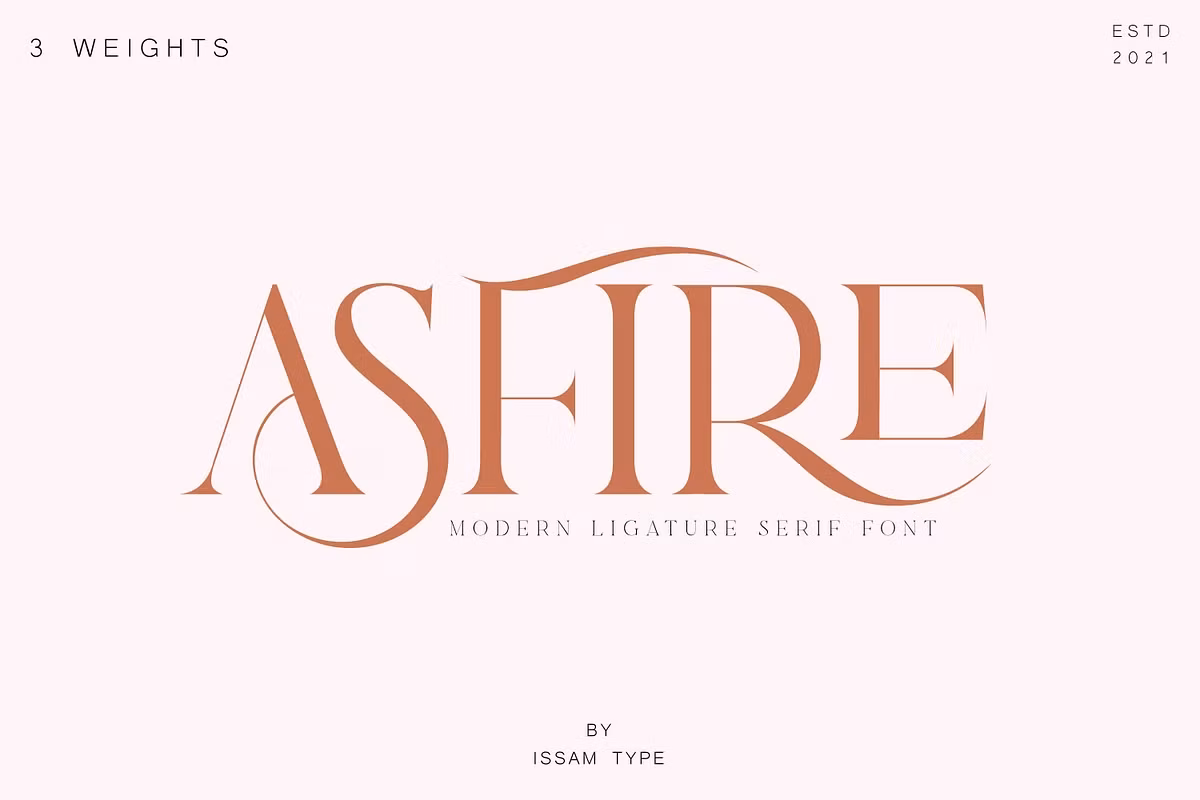
Asfire – Elegant Ligature Serif Font Free Download is a refined and sophisticated serif typeface that incorporates beautiful ligatures, creating a smooth and elegant flow. This font is perfect for high-end branding, luxury packaging, wedding invitations, editorial design, and any project that demands a timeless, graceful aesthetic.
With its strong serif features and artistic ligatures, Asfire offers both readability and style, making it ideal for logos, headlines, and sophisticated body text. The ligatures add a unique touch, elevating your design with a polished and exclusive feel.
Add luxury and elegance to your designs with the classic, refined beauty of Asfire!